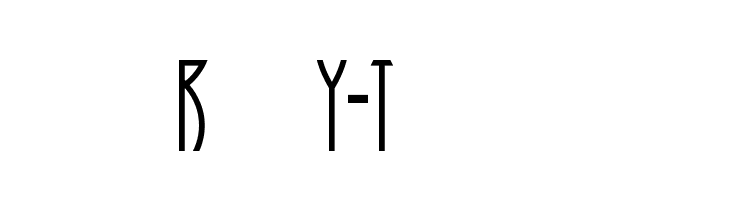
( Fonts by Nick Curtis - www.nicksfonts.com )
A modern, elongated font with geometric precision and high symmetry.
( Fonts by Nick Curtis - www.nicksfonts.com )
A decorative font with elongated, angular letterforms and high contrast, inspired by Art Deco.
( Fonts by www.fontalicious.com )
A bold, angular font with geometric shapes and a modern edge.
( Fonts by www.Fontfabric.com )
A bold, playful font with rounded, whimsical characters.
( Fonts by Patrick Broderick )
A sleek, modern font with geometric lines and a monospaced appearance.